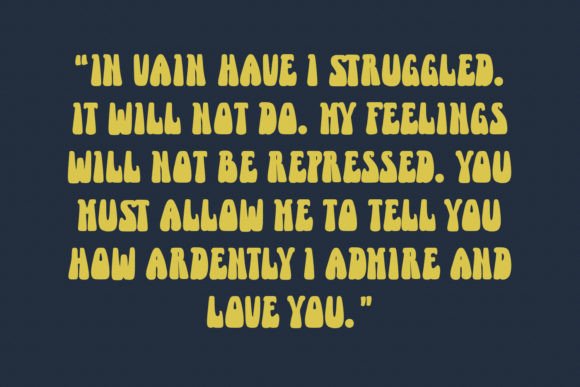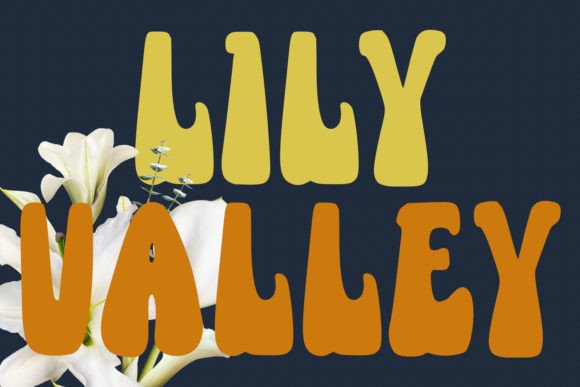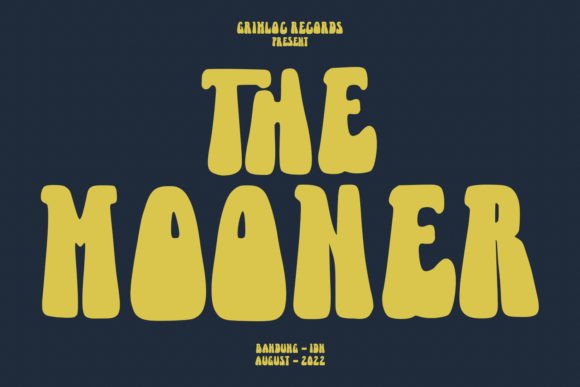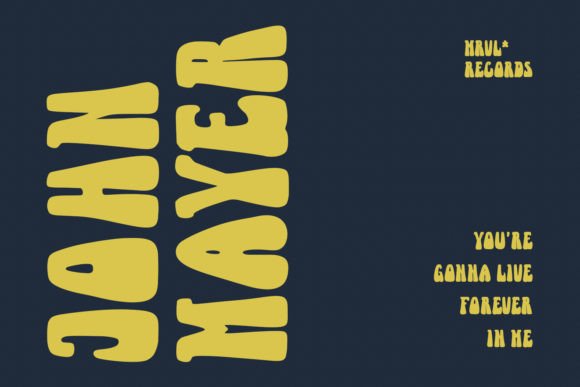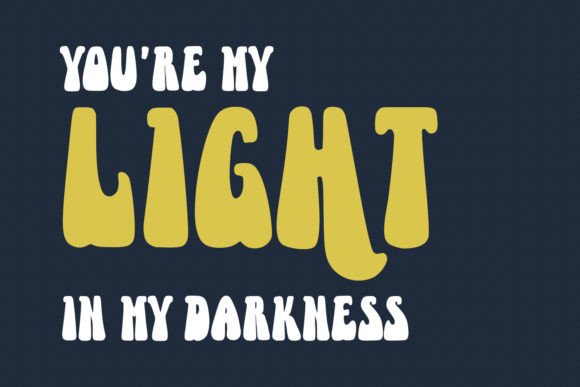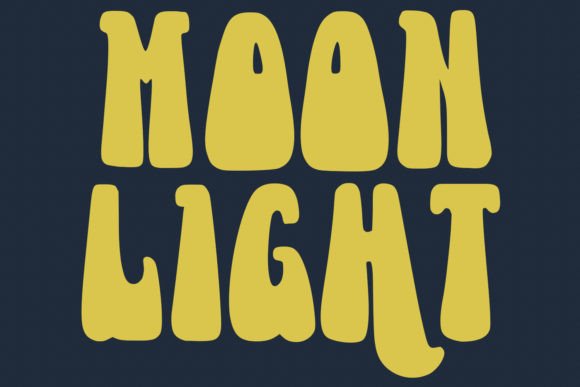
The High Romantic Font: A Groovy Addition to Your Design Arsenal
I’ll never forget the time I was working on a project for a client who wanted a font that screamed “joy” and “fun.” I had spent hours scouring the internet for the perfect display font, but nothing seemed quite right. That was until I stumbled upon High Romantic. This cool and groovy display font has been a game-changer for my designs, and I’m excited to share its awesomeness with you! 😊
An Honest Review: The Good and the Quirky
So, what makes High Romantic so special? Let’s dive into the good stuff first! ✨
• ✅ Unique and eye-catching design: High Romantic has a one-of-a-kind look that’s sure to make your designs stand out from the crowd.
• ✅ Perfect for display text: This font is designed specifically for display text, making it ideal for headlines, titles, and other attention-grabbing elements.
• ✅ Easy to read: Despite its unique design, High Romantic is surprisingly easy to read, even at smaller sizes.
• ✅ Versatile: This font can be used for a wide range of design projects, from posters and flyers to social media graphics and branding materials.
Now, let’s talk about a few quirks to keep in mind: 🤔
• ⚠️ Limited use for body text: While High Romantic is easy to read, it’s not the best choice for large blocks of body text. Stick to using it for display text and headings.
• ⚠️ Some characters may require manual kerning: Depending on your design, you may need to manually adjust the kerning for certain characters to get the best results.
The Backstory Behind High Romantic
High Romantic was designed with one goal in mind: to create a font that embodies the carefree, joyful spirit of the 1960s and 1970s. Inspired by vintage rock posters, psychedelic art, and classic typography, this font is perfect for designers who want to add a touch of nostalgia and whimsy to their work.
Font Name High Romantic Font
Author Maulana Creative
What is High Romantic best used for? High Romantic is best used for display text, such as headlines, titles, and other attention-grabbing elements.
Is High Romantic easy to read? Yes, High Romantic is surprisingly easy to read, even at smaller sizes. However, it’s best used for display text rather than large blocks of body text.